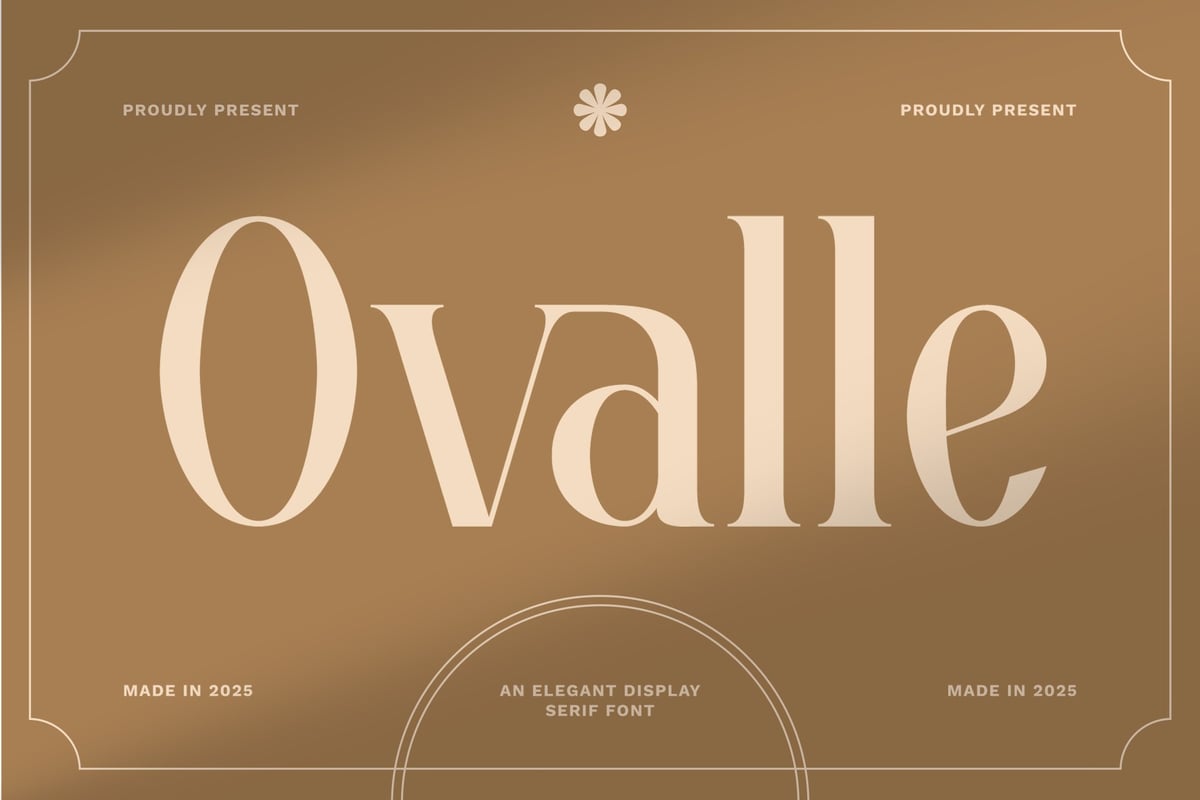
Ovalle – Display Serif Typeface
Ovalle is a high-contrast display serif typeface built for brands that demand elegance and visual impact.
With its refined serifs, flowing curves, and bold stroke contrast, Ovalle strikes the perfect balance between classic tradition and distinctive character. Whether you're crafting a luxury logo, editorial layout, product packaging, or headline design, this typeface commands attention on every platform.
Ovalle is ideal for:
- Brand identities and logo design
- Editorial and magazine layouts
- Packaging and label design
- Posters and headline typography
- Wedding and event stationery
The font includes a full character set with uppercase and lowercase letters, numerals, punctuation, ligatures, stylistic alternates, and multilingual support — giving you the flexibility to craft truly refined typographic compositions.
- Ligatures and stylistic alternates